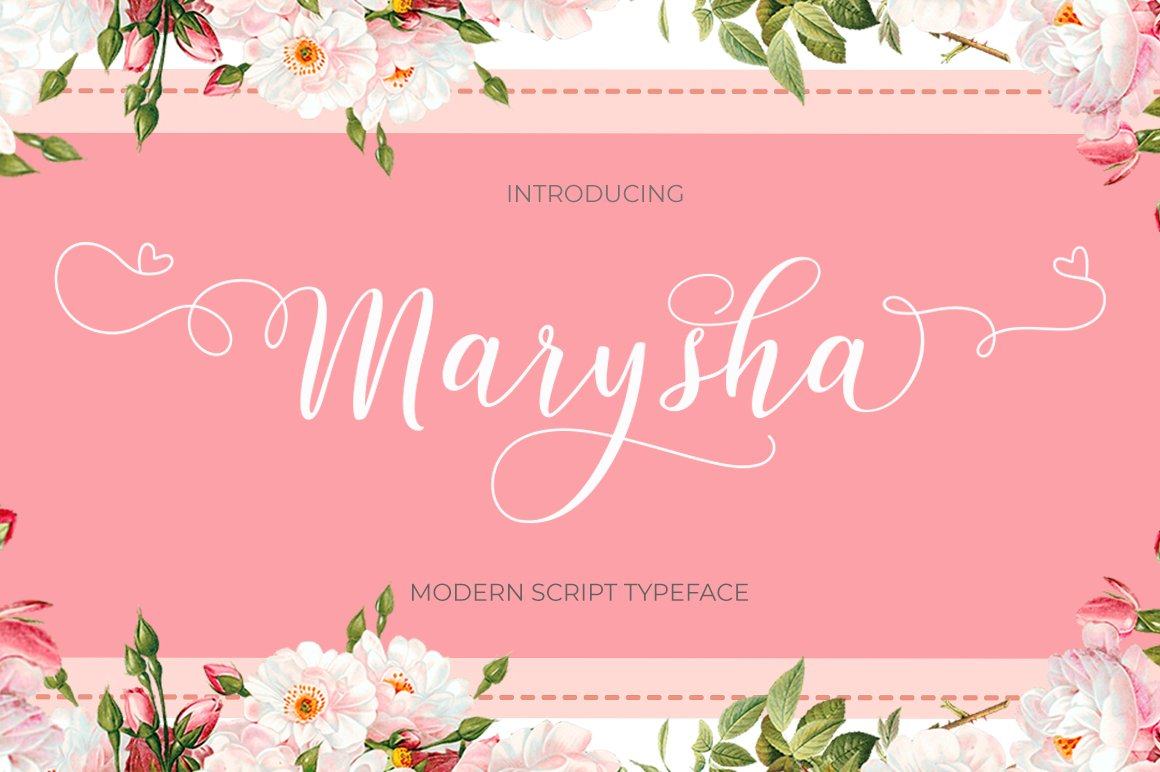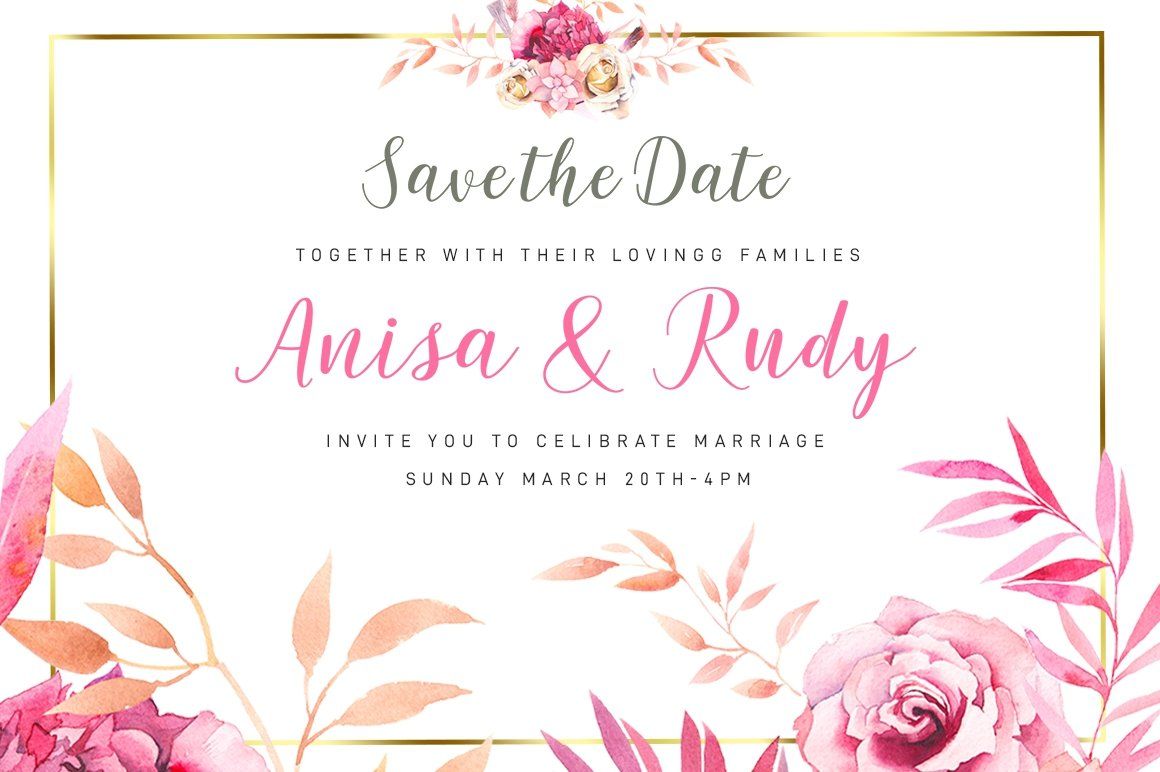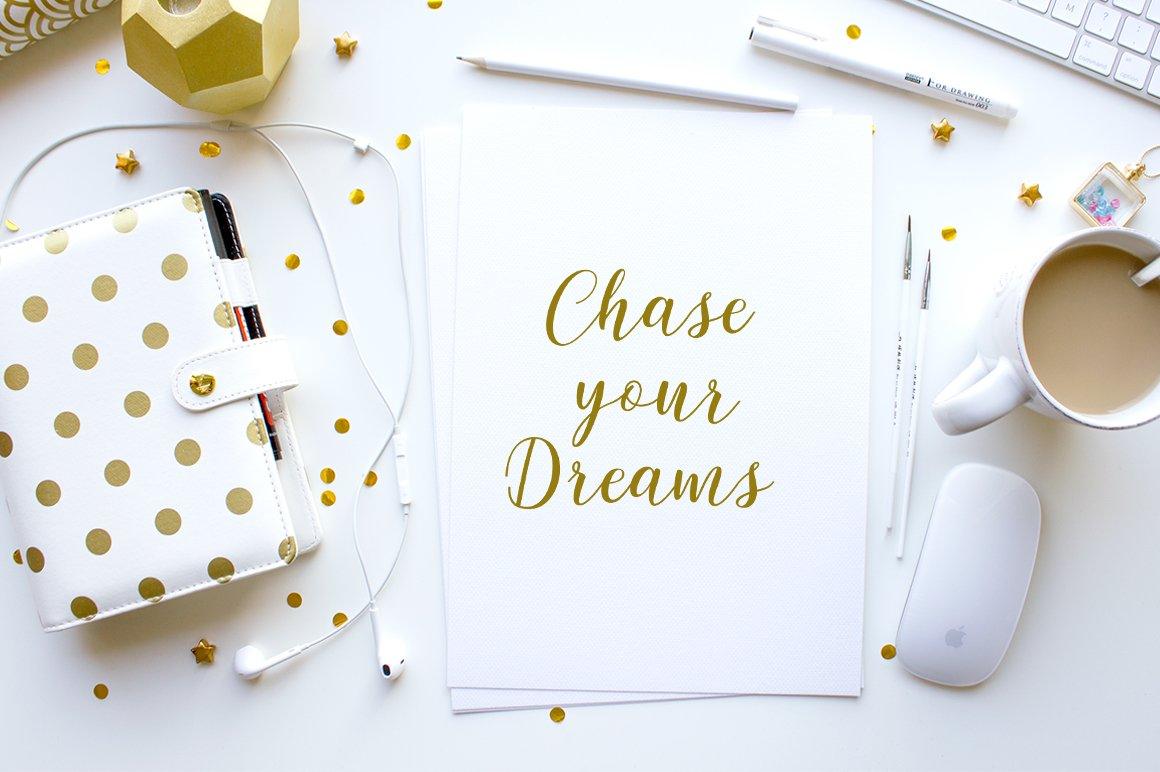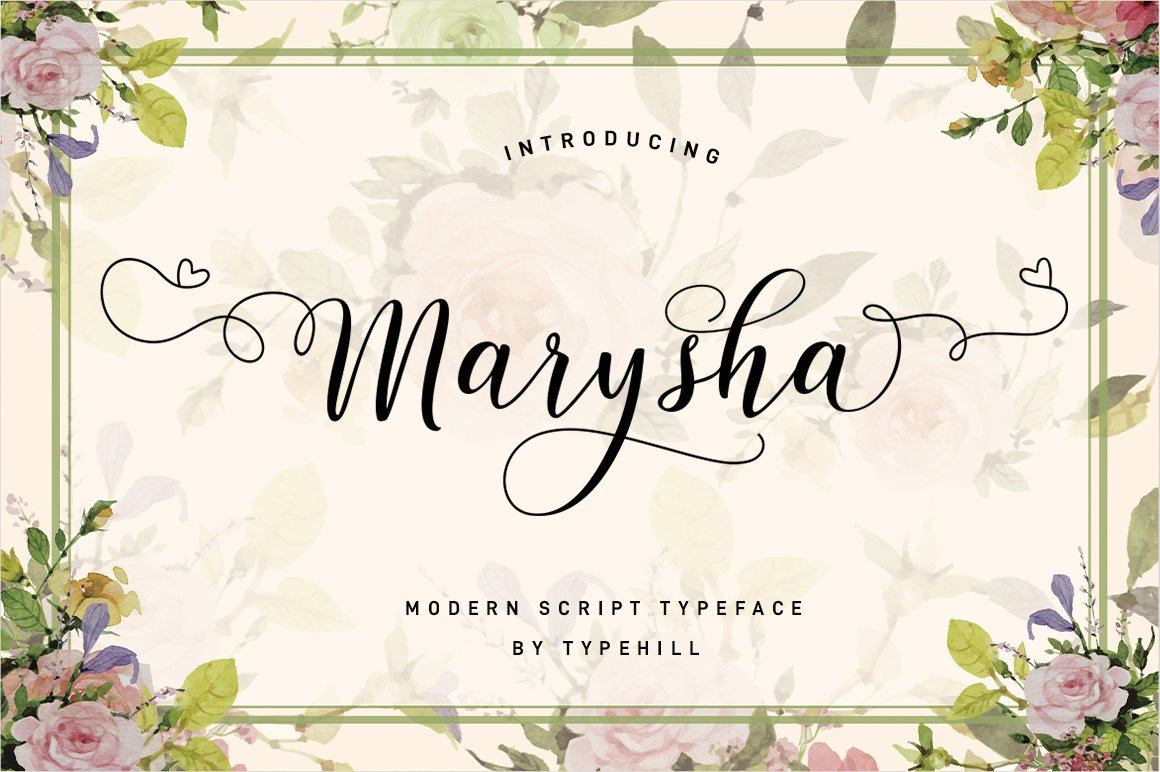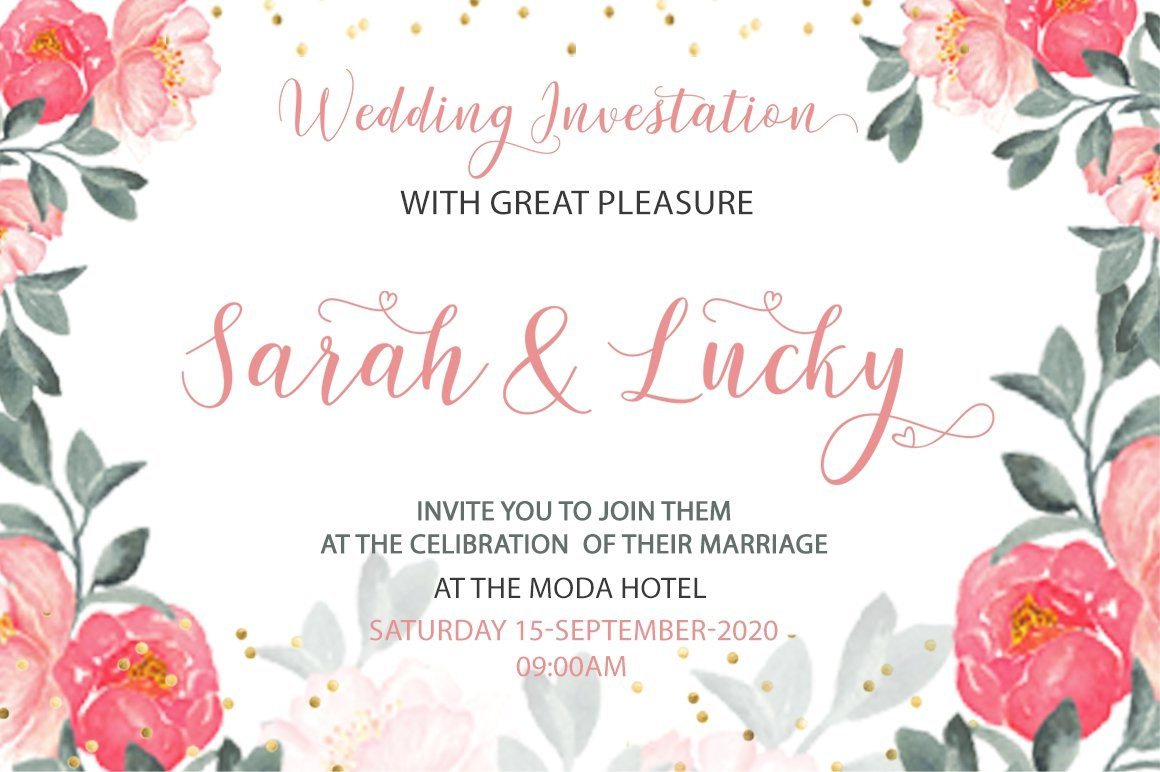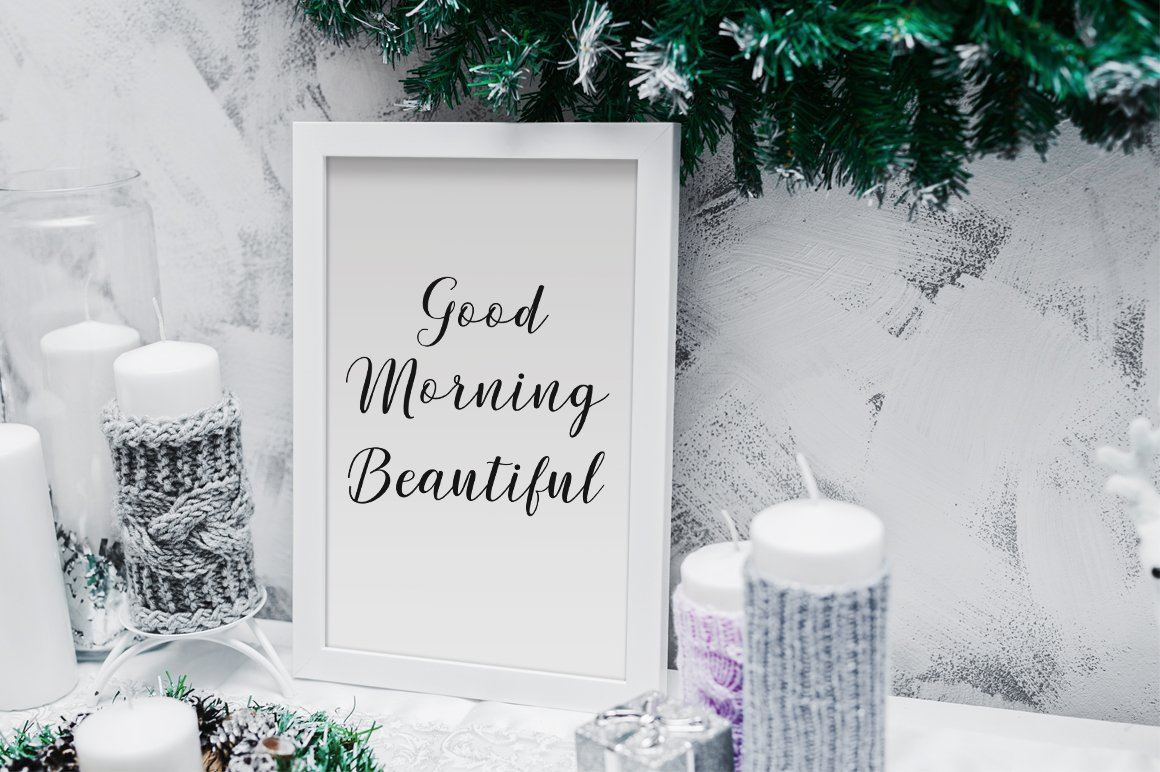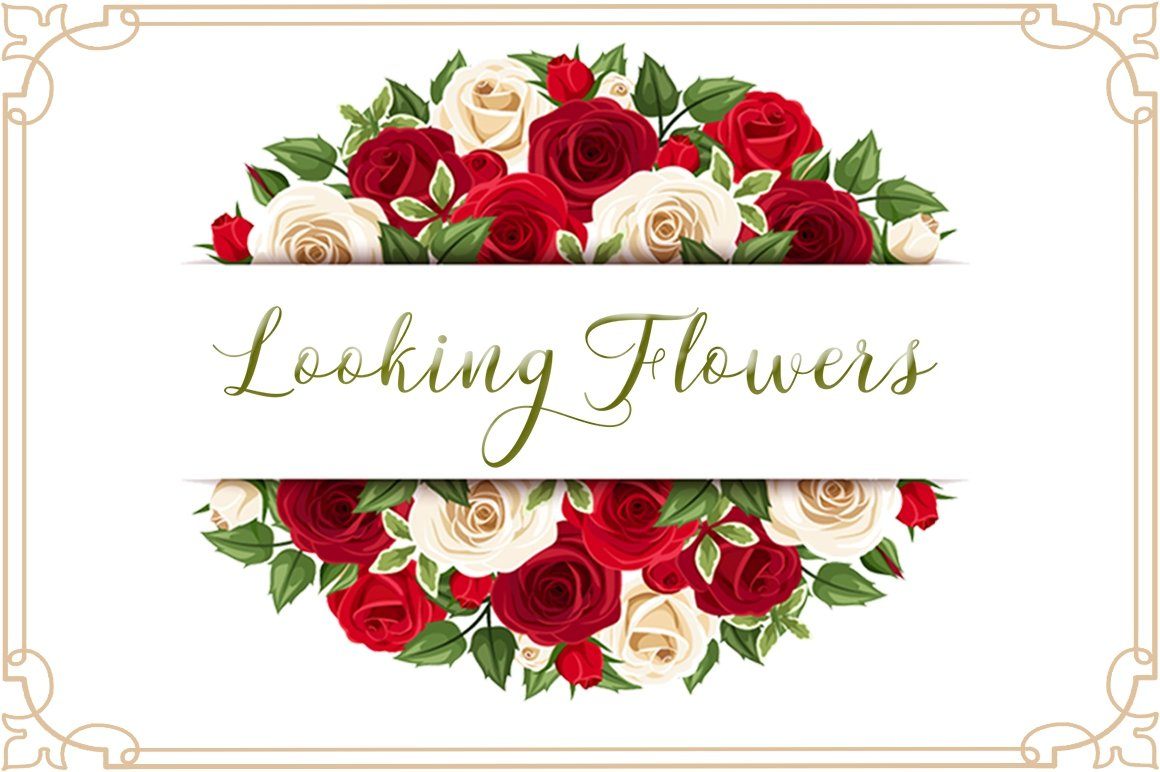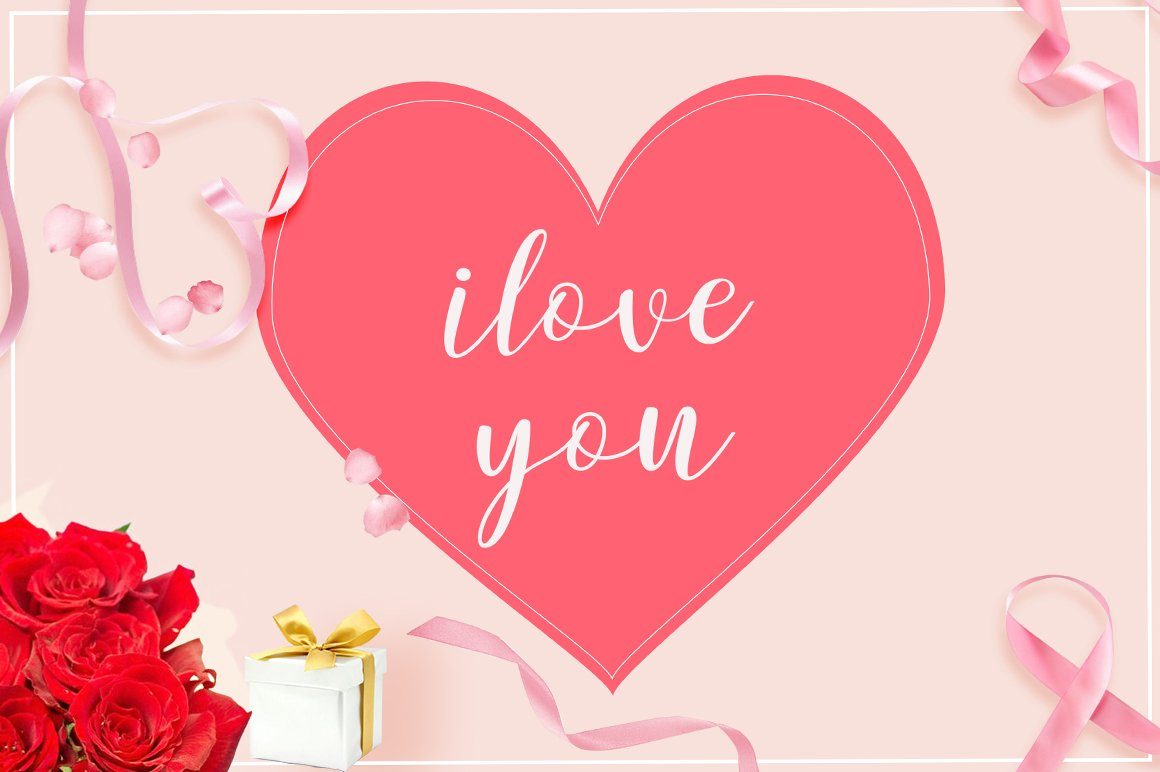
Marysha Script
About Marysha Script
Marysha Script is a new modern script font with an irregular baseline. Trendy and feminine style. Marysha Script looks lovely on wedding invitations, thank you cards, quotes, greeting cards, logos, business cards and more. Perfect for using in ink or watercolour. Including initial and terminal letters, alternates, ligatures and multiple language support.